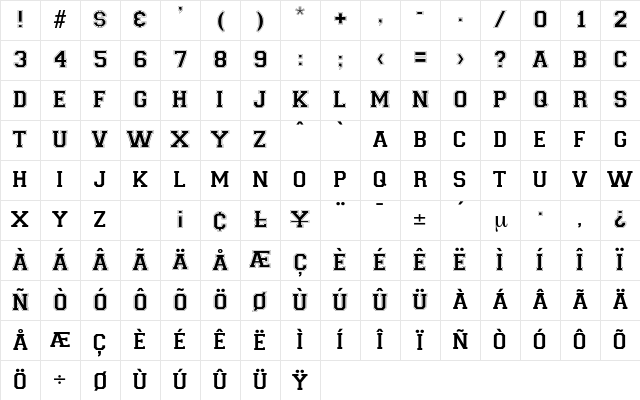
Hillman Regular
Design Context for Hillman
Hillman is a composed and adaptable typeface that performs quietly and consistently across a wide range of design contexts.